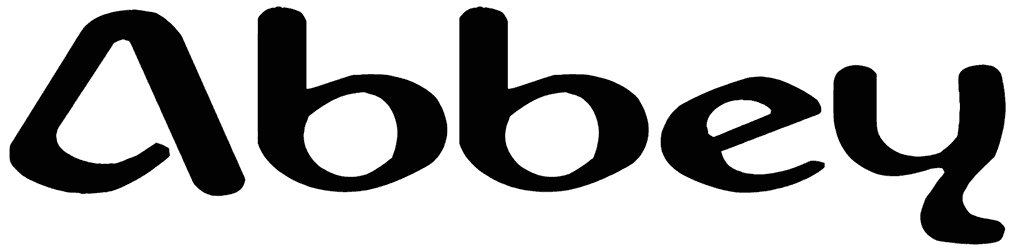
Abbey Font
Abbey is a stunning font with rounded corners that wants to turn typography into a piece of art. It’s great for titles and headers thanks to its bold letters and relaxed style.
Use this fancy font for logos, product packaging, and anywhere else that you want to stand out and attract more followers and customers with a distinctive visual element. Explore the rest of RB to discover the other font options we provide.